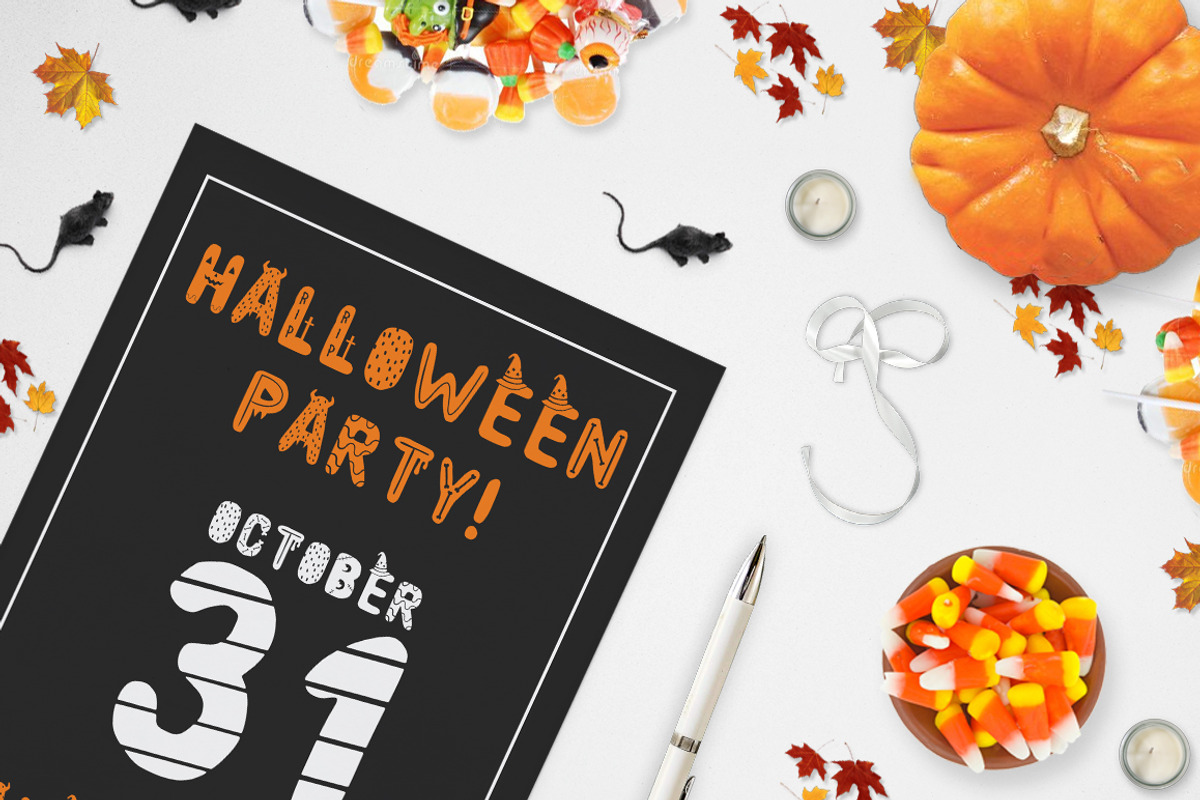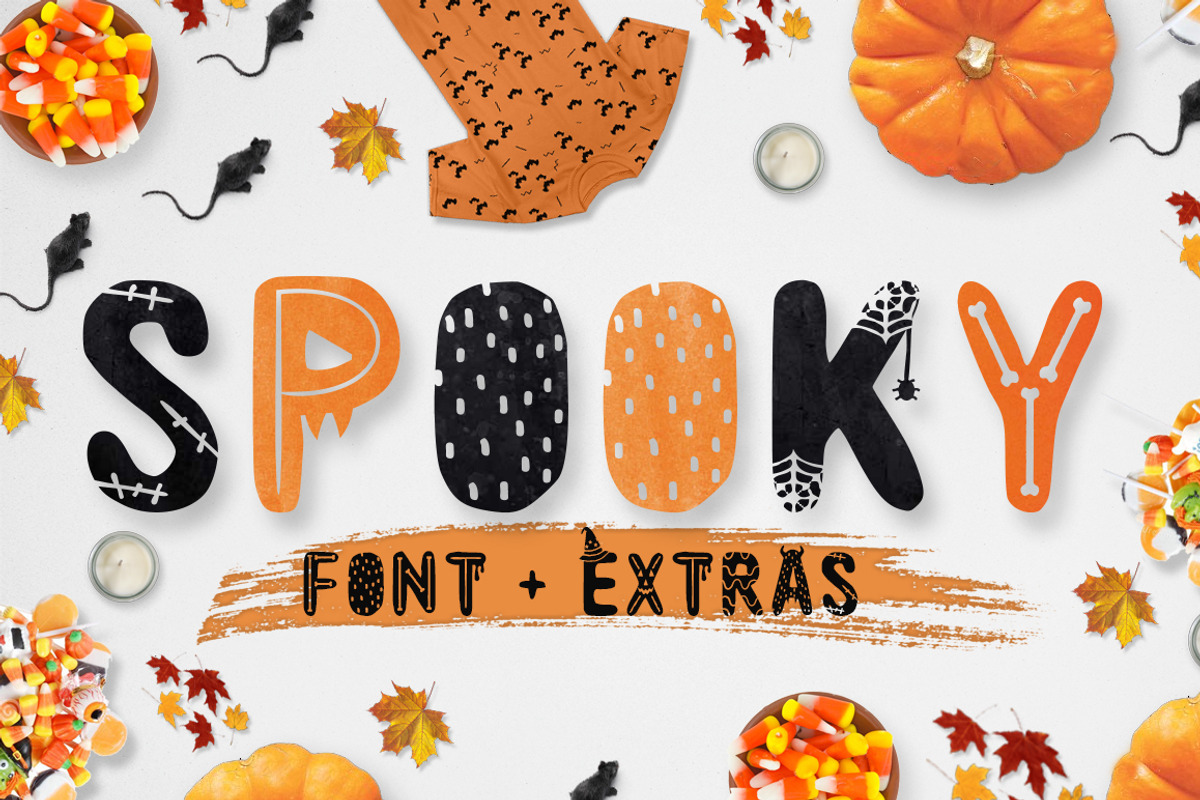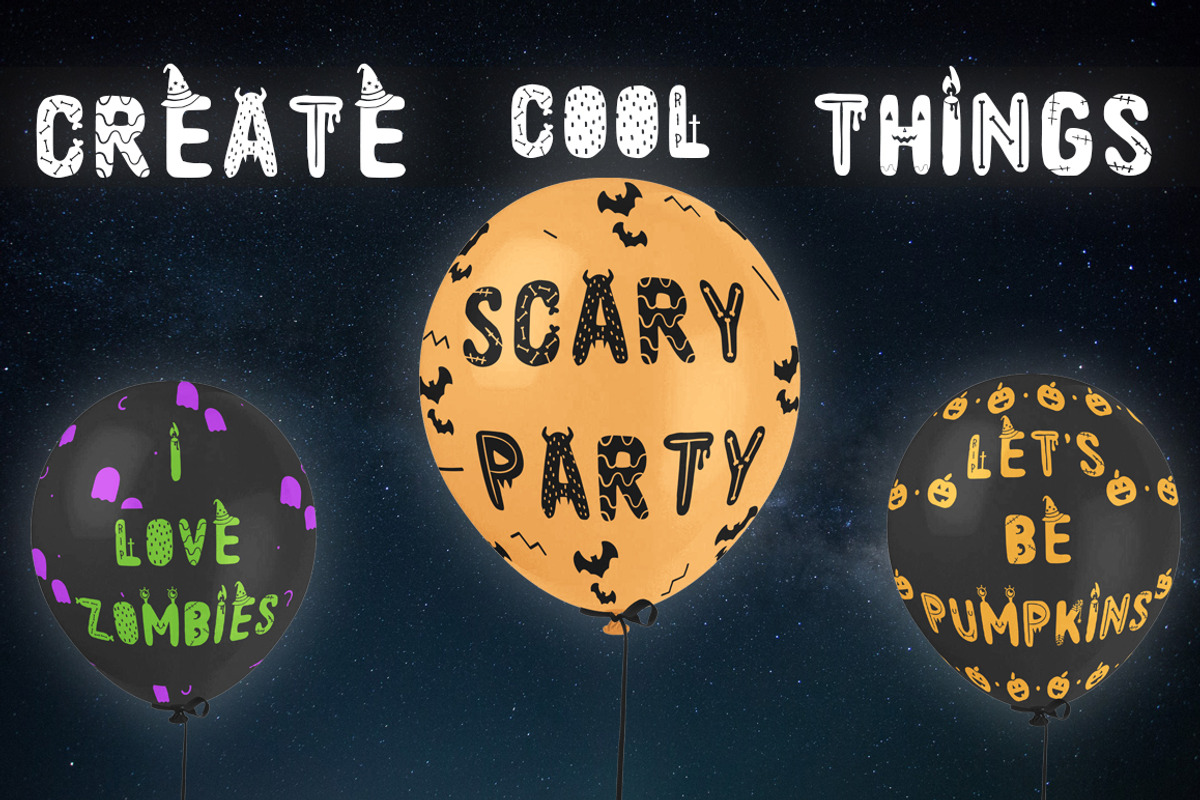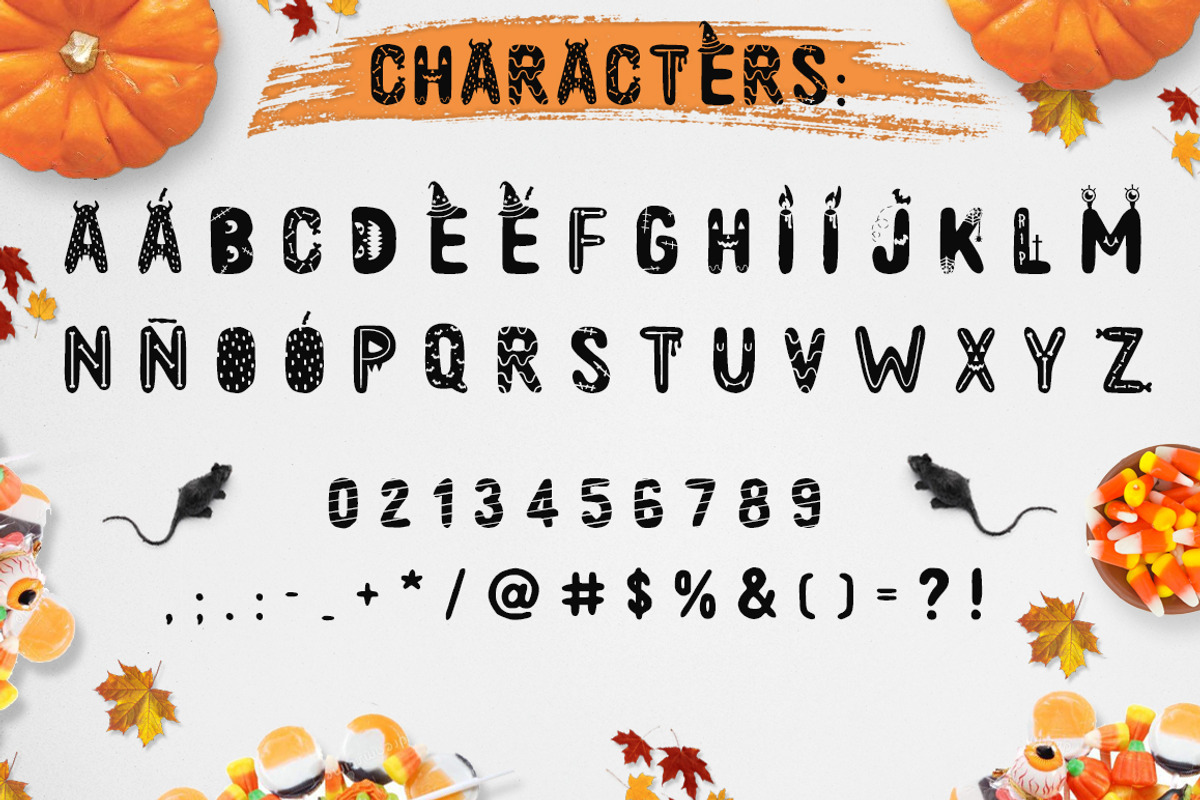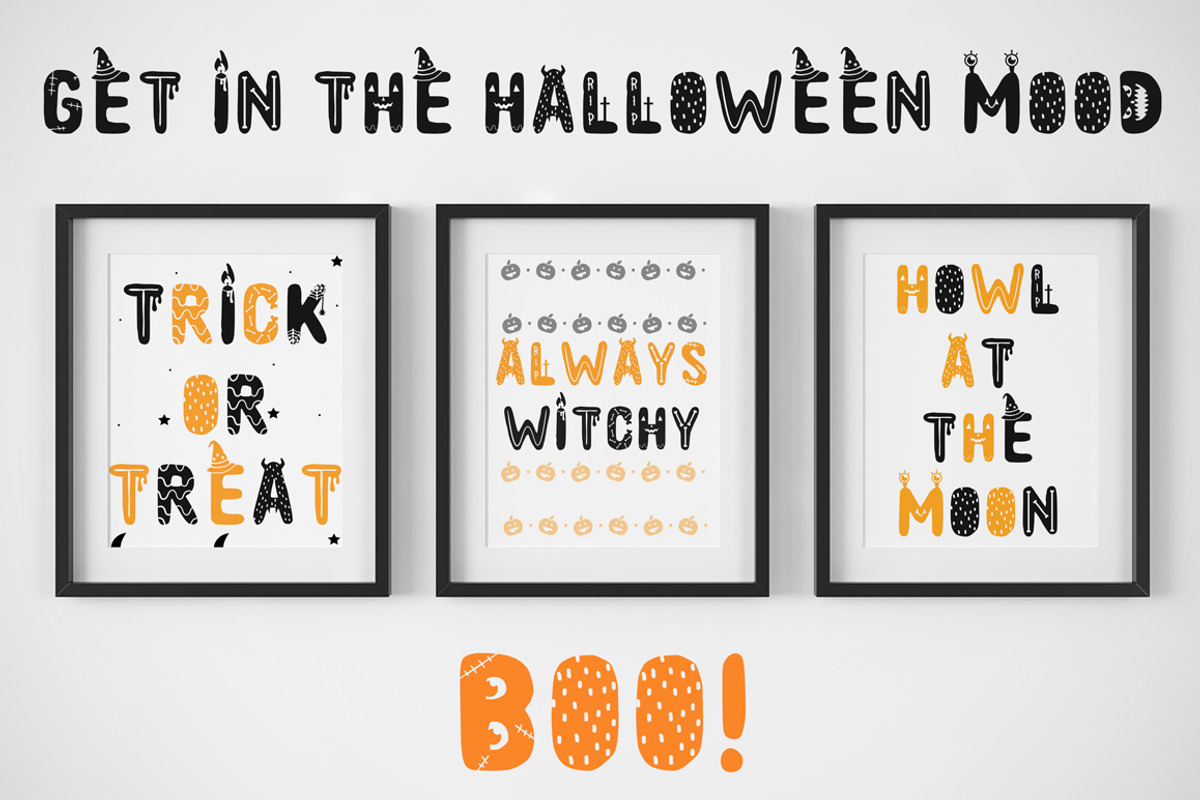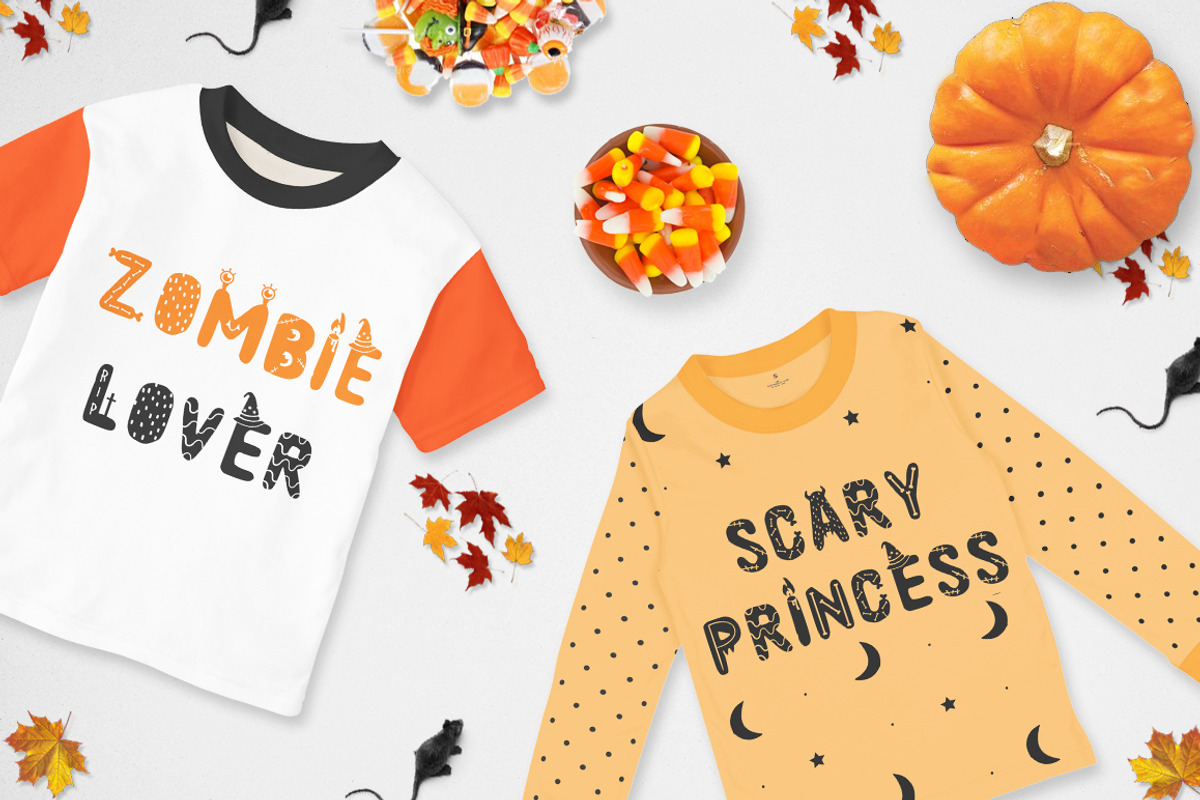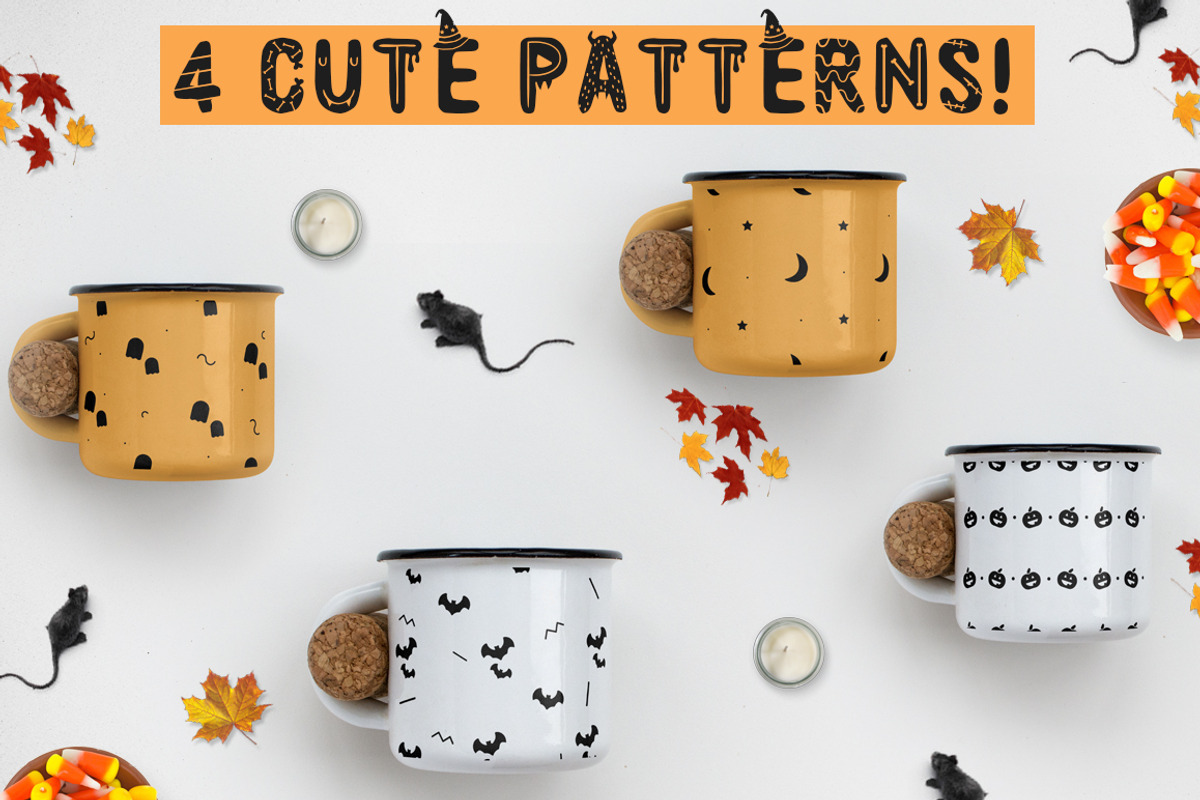
Spooky font + EXTRAS!
The time is flying fast and october is almost here! That's why so close to the best month of the year I present to you a font perfect for the spookiest time of the year: Spooky font! As you may see is very fun and cute, it's just what wee all need to create the most scary and playful designs.
Perfect for creating invitations, merchandise, decorations, thematic posts, flyers, etc...
It's multilingual, it got hispanic characters, ¡Qué viva el poder de la Ñ!